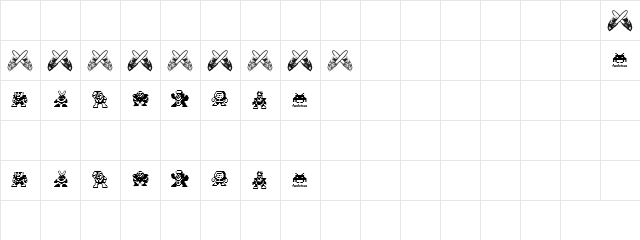
MegaMan .Villanz
Design Context for MegaMan Typeface
MegaMan is a composed and adaptable typeface that performs quietly and consistently across a wide range of design contexts.